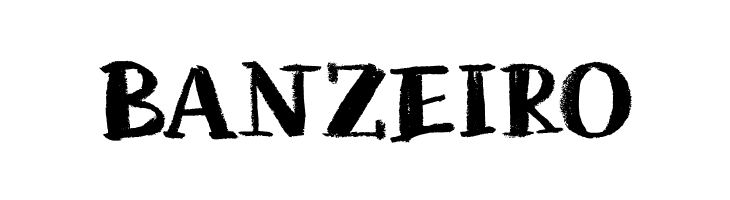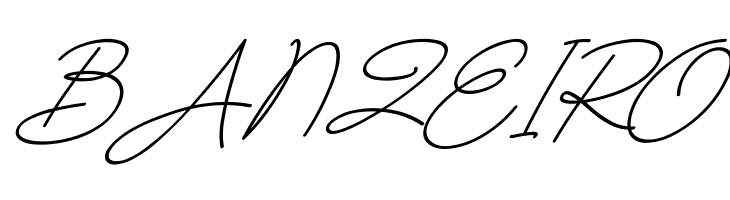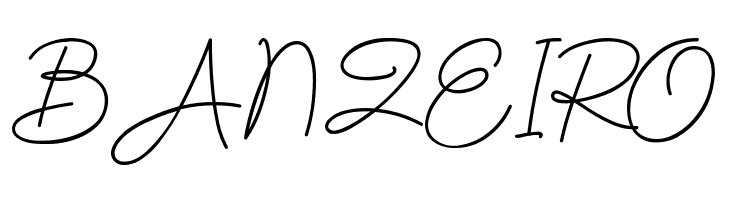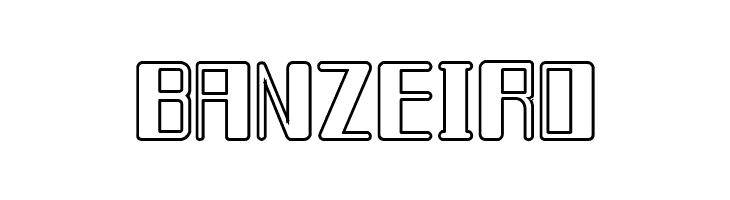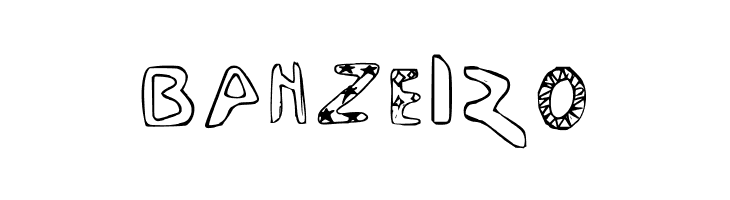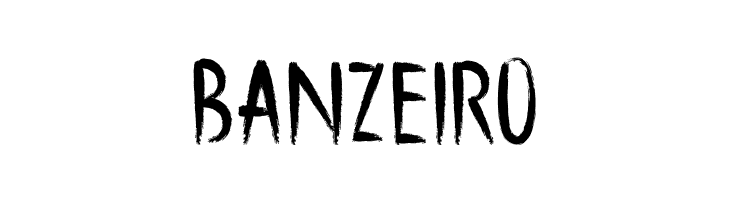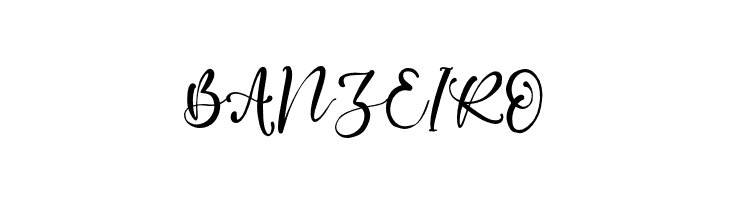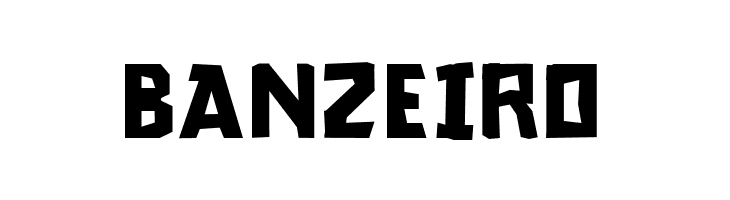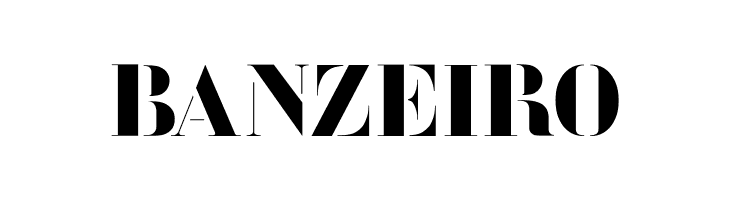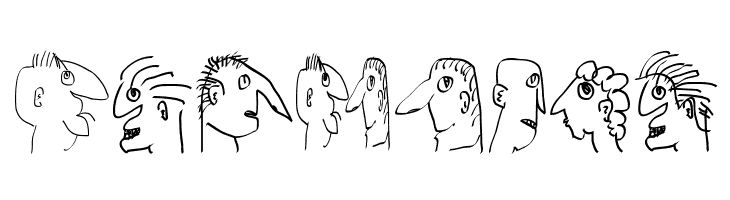
A bold, distressed serif font with a vintage, rugged style.
A bold, angular font with a modern and geometric style.
A bold, distressed font with a grunge, graffiti-inspired style.
A bold, italicized font with angular, futuristic letterforms.
A graceful and elegant script font with fluid, continuous strokes.
An elegant, flowing script font with a cursive, handwritten style.
A hand-drawn, chalk-like font with textured, dynamic strokes.
A bold, playful font with rounded edges, perfect for casual and inviting designs.
An elegant script font with fluid, cursive strokes and sophisticated design.
An elegant script font with flowing, cursive letters and refined flourishes.
A bold, modern font with geometric shapes and a futuristic style.
A bold, modern italic font with dynamic curves and sharp angles.
A playful, handwritten font with rounded, slightly irregular letterforms.
A dynamic, angular font with a modern calligraphic style.
A bold, handwritten-style font with dynamic, slanted characters.
A bold, dynamic font with slanted characters and strong strokes.
A dynamic, angular font with a brush-like, artistic style.
An elegant, cursive script font with a flowing, handwritten style.
A distressed, hand-drawn font with a grunge, textured style.
A complex, circuit-inspired font with a bold, industrial style.
A playful, chaotic font with irregular, whimsical letterforms and a hand-drawn style.
A playful, hand-drawn font made up of quirky cartoon heads.
A bold, high-contrast serif font with a modern and dramatic style.
An elegant and flowing script font with cursive letterforms.
An elegant, flowing script font with high contrast and decorative flourishes.